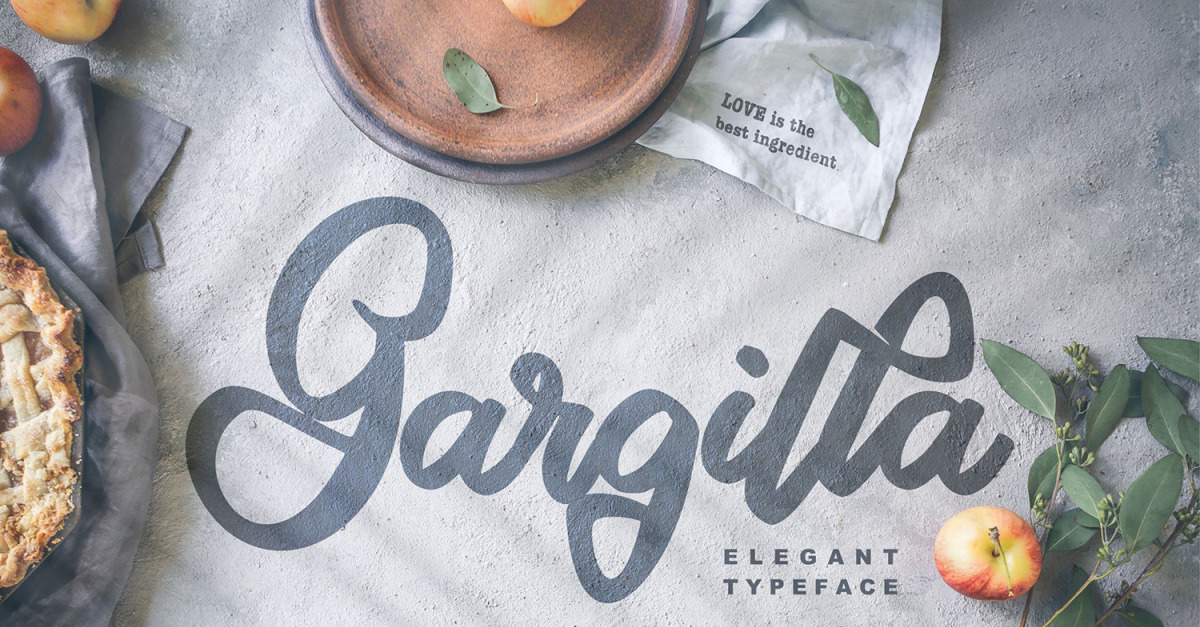
Gargilla | Elegant Typeface Cursive Font
**Gargilla | Elegant Typeface Script Font** with a calligraphy style, So beautiful on invitation like greeting cards, branding materials, business cards, quotes, posters, and more!